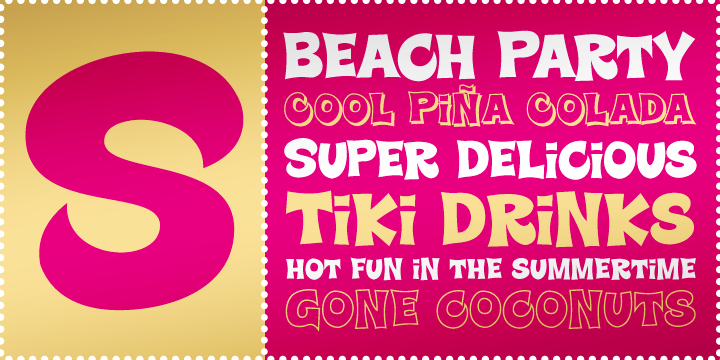
Super Delicious BTN
Super Delicious BTN is a funky playful display family with a bright summertime personality. Its lively shapes and upbeat attitude make it a natural fit for posters, packaging, party graphics, food-themed design, signage, branding, and cheerful headline work that needs a fun, high-energy voice. The family balances casual charm with strong display impact, making it easy to use for designs that want to feel bold, sunny, and full of character. With Regular, Outline, and Shadow styles, Super Delicious BTN offers flexible options for building eye-catching typography with extra retro-flavored flair.
Super Delicious BTN includes 258 glyphs.